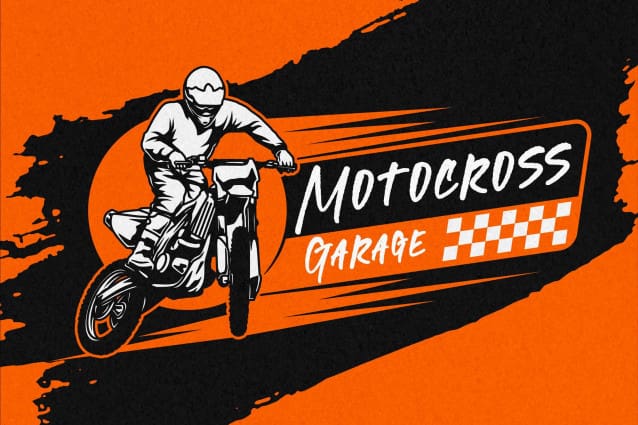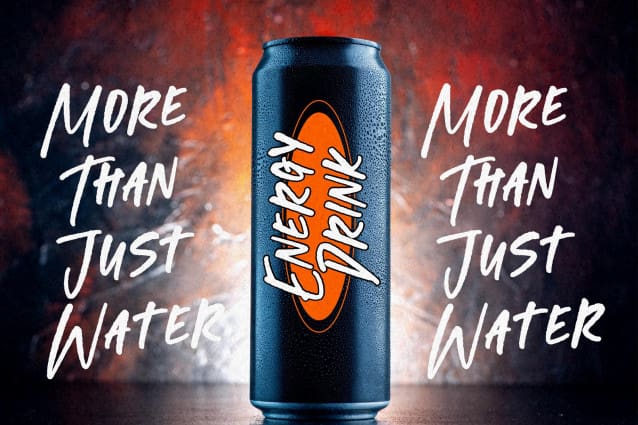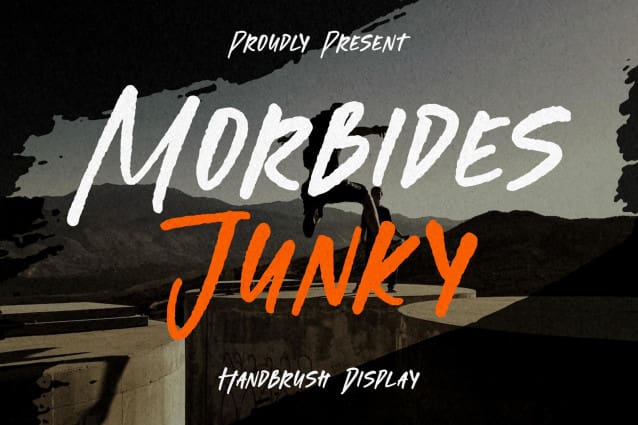
Morbides Junky Font
Morbides Junky Font – Handbrush Display , from Glorytype Studio, suitable for any projects such as: logos, branding projects, homeware designs, product packaging, mugs, quotes, posters, shopping bags, t-shirts, book covers, name card, invitation cards, greeting cards, label, photography, watermark, special events, and all your other lovely projects that need a beautiful script taste.